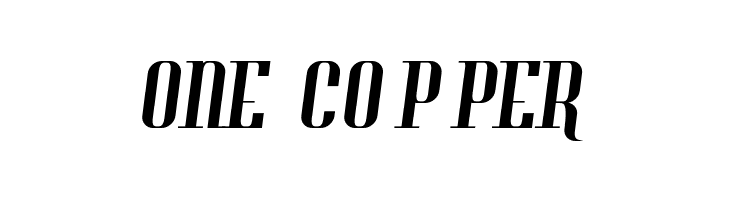
CarolynaWords Font
- Font: CarolynaWords
( Fonts by Tup Wanders - www.tupwanders.nl )
A modern, high-contrast serif font with tall, narrow letterforms and elegant serifs.